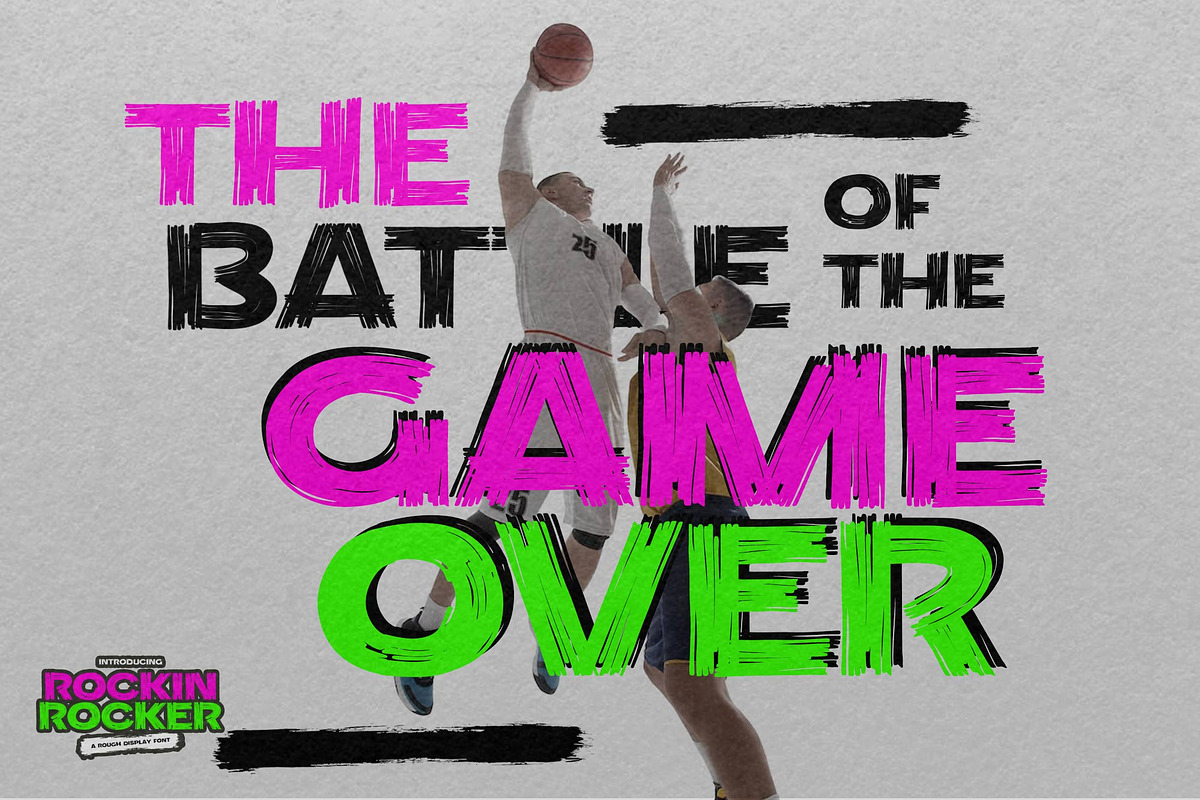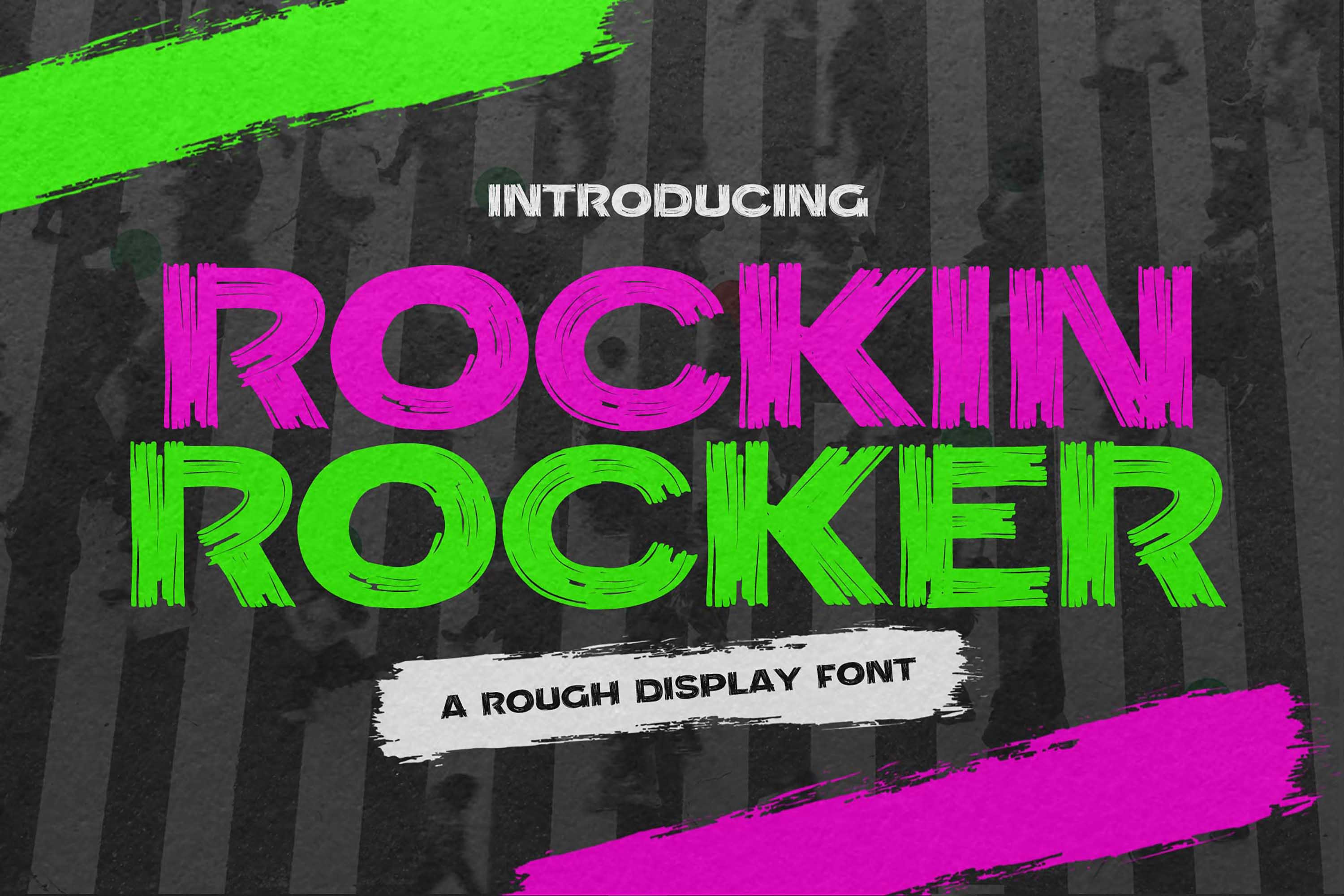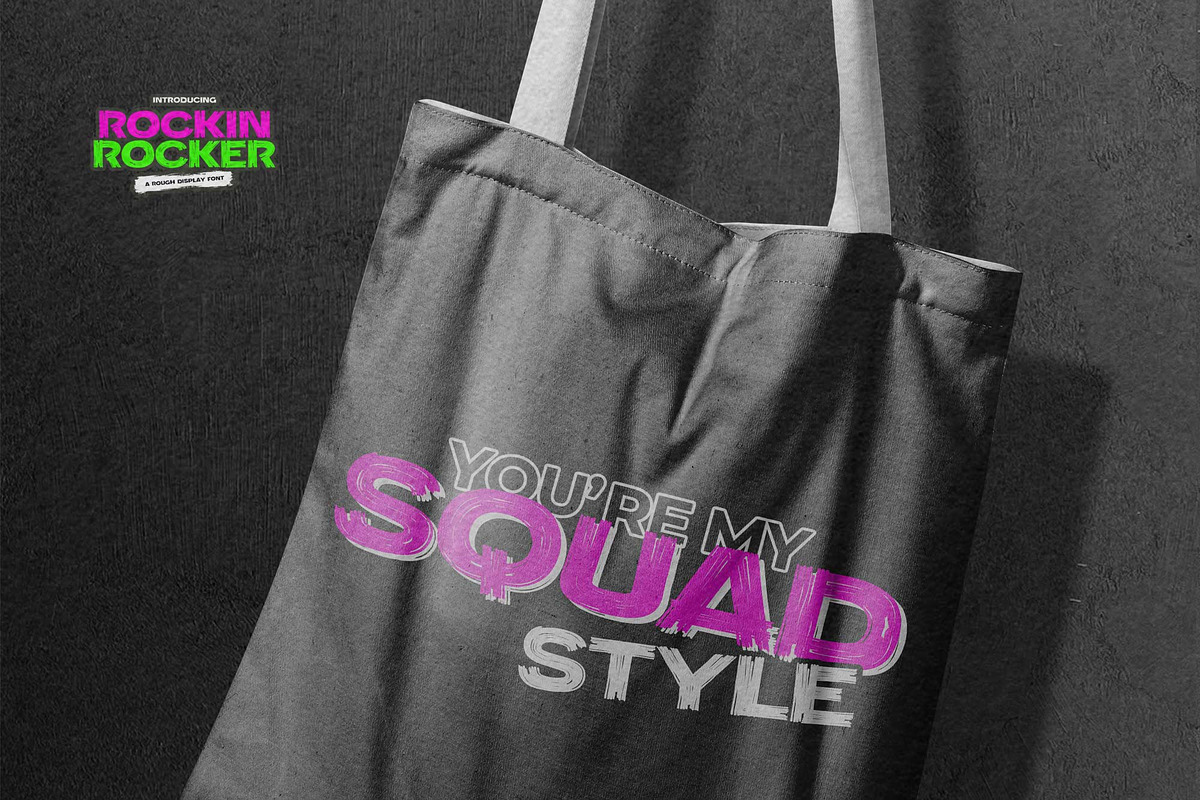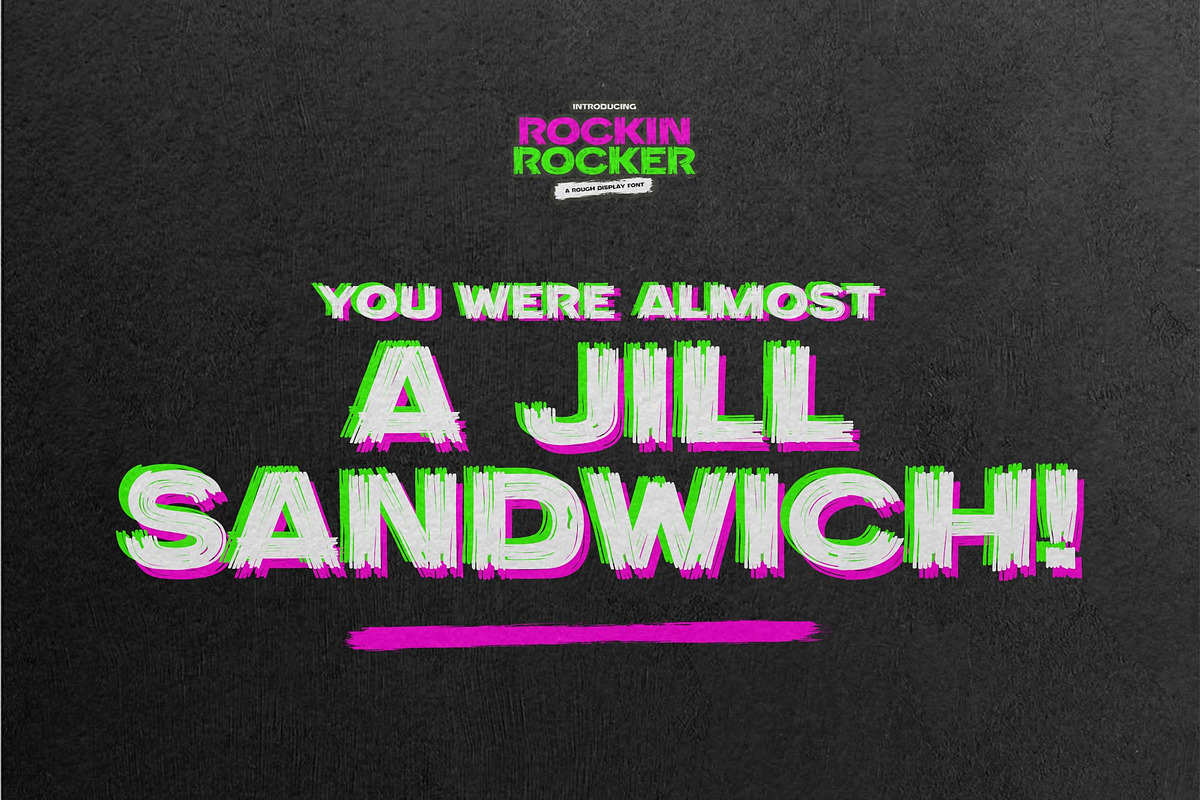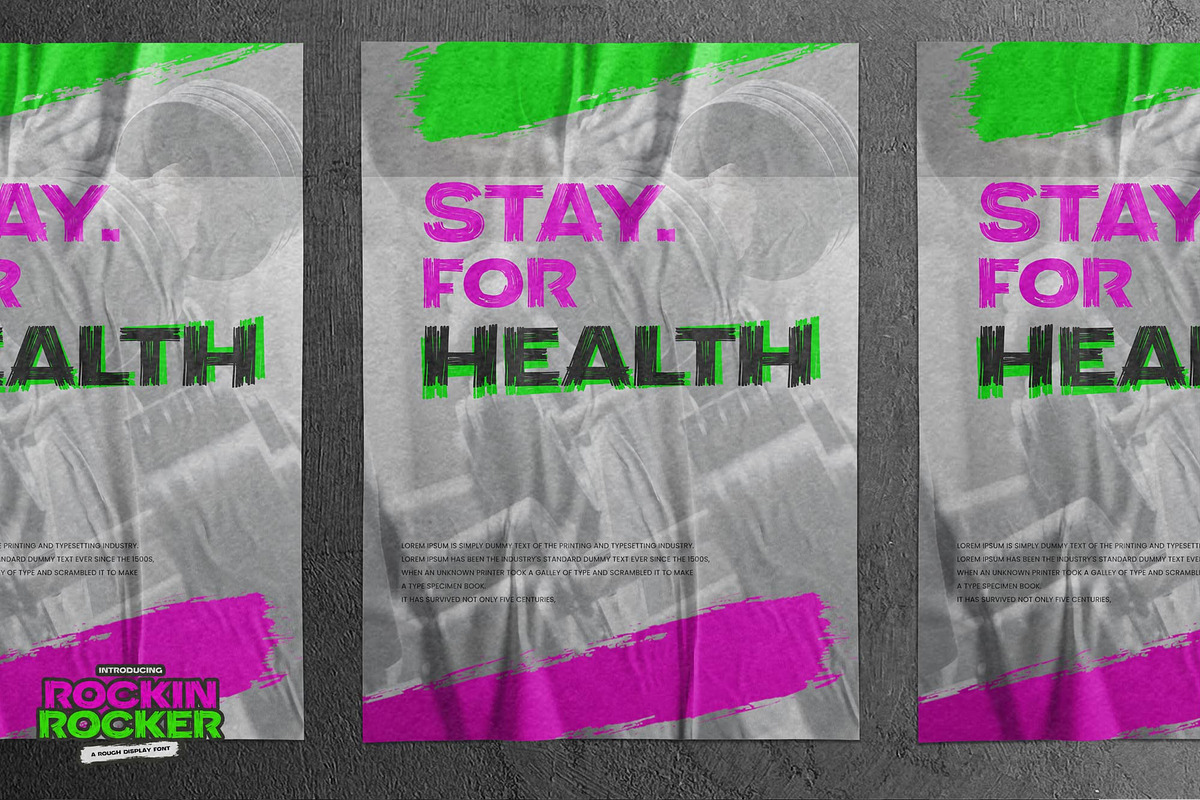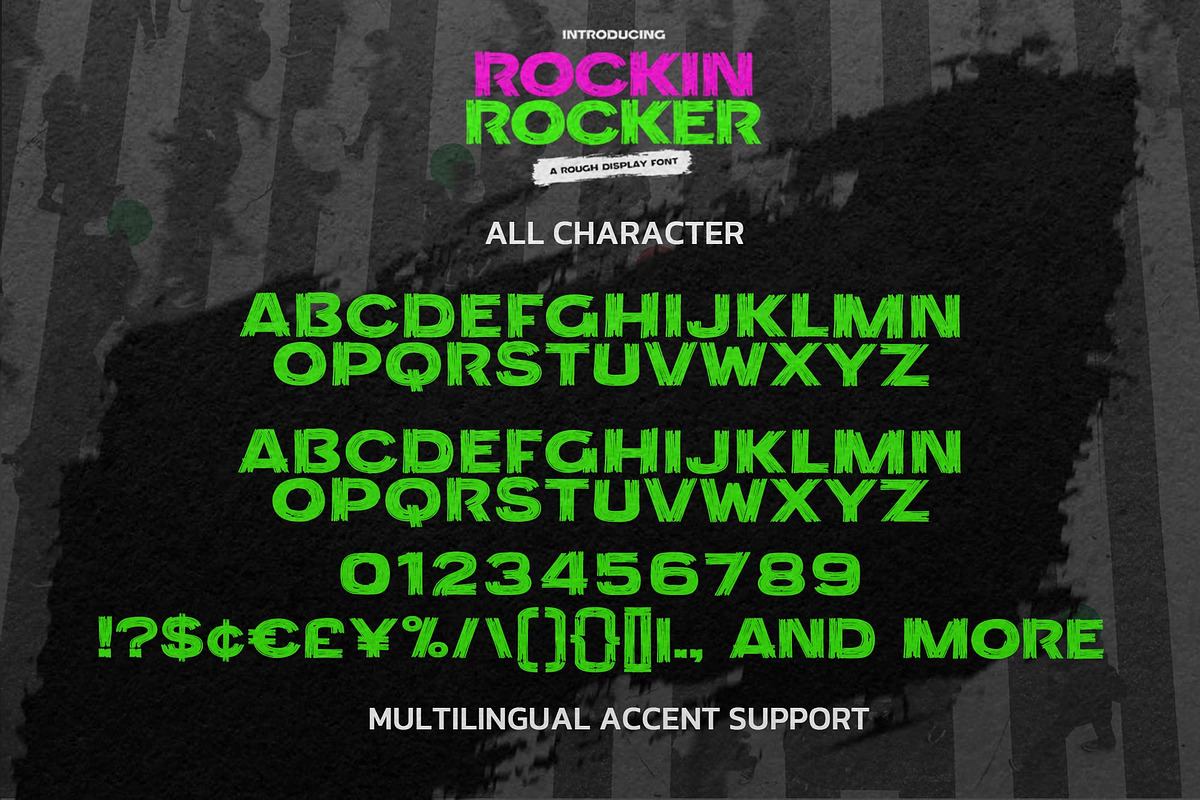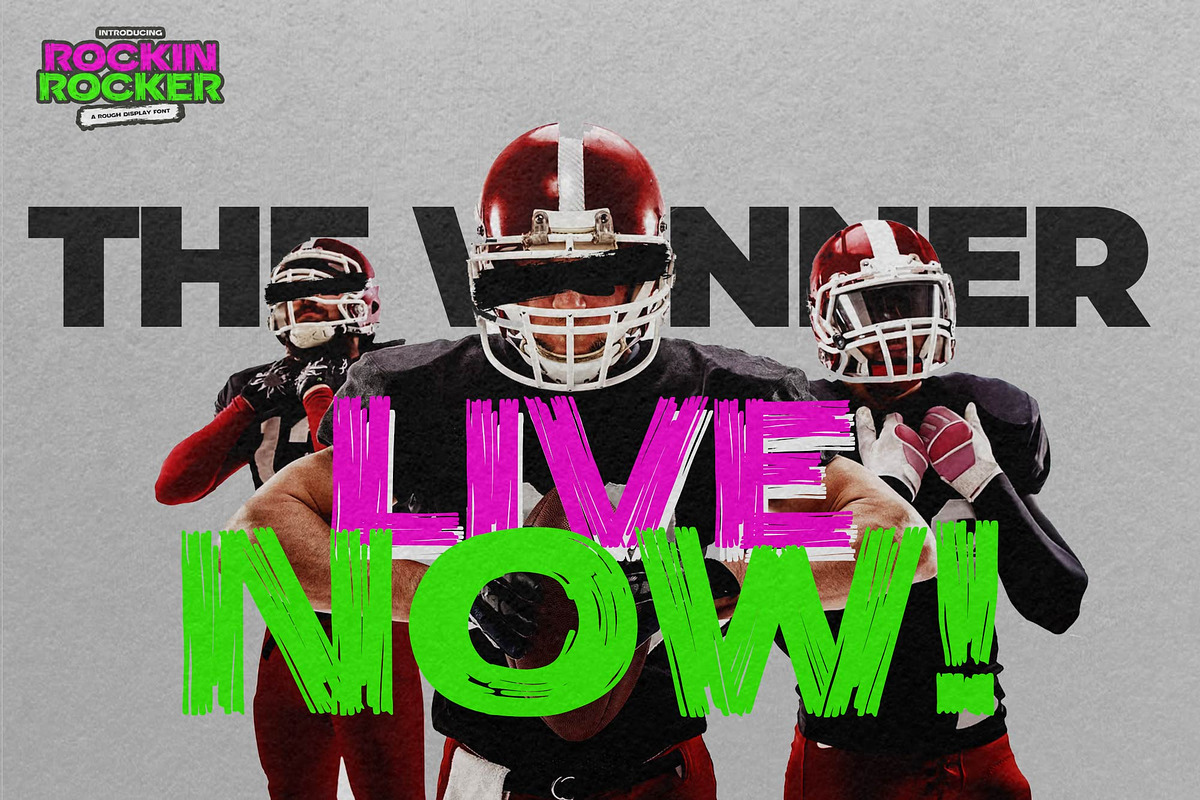
Rockin Rocker - A Rough Display Font
Hello Everyone, introduce our new product Font Rockin Rocker This Is A Rough Display Font.This is a Textured Natural Style and classy style with a clear style and dramatic movement.
This font Rockin Rocker is great for your next creative project such as logos, printed quotes, invitations, cards, product packaging, headers, Logotype, Letterhead, Poster, Design this font is great for your creative projects such as watermark on photography, and perfect for logos & branding, invitation,advertisements,product designs, stationery, wedding designs,label ,product packaging, special events or anything that need handwritting taste.
That is has charming, authentic and relaxed characteristic more natural look to your text.